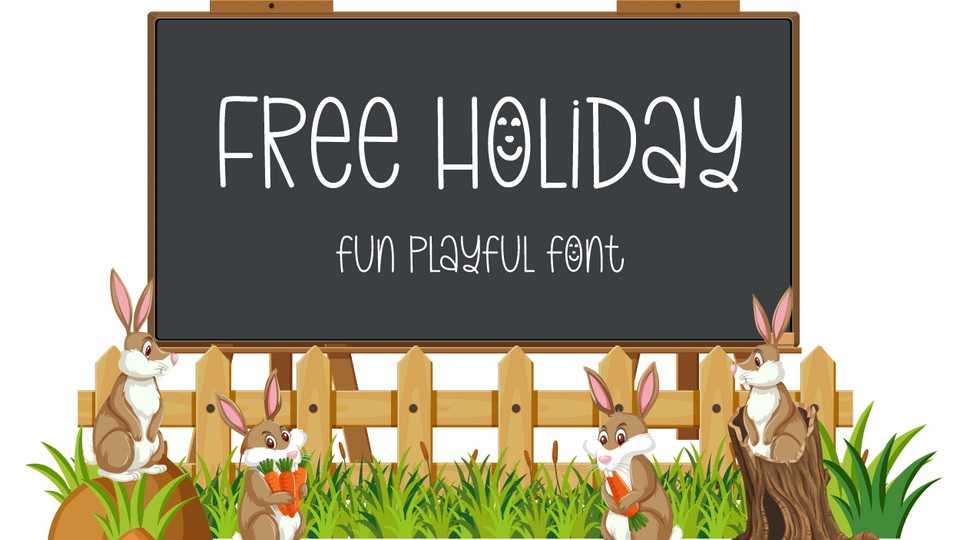
Download Free Holiday font, a cute, playful and thin lettered sans serif typeface. Free Holiday font is perfect to your most creative ideas to make them stand out.